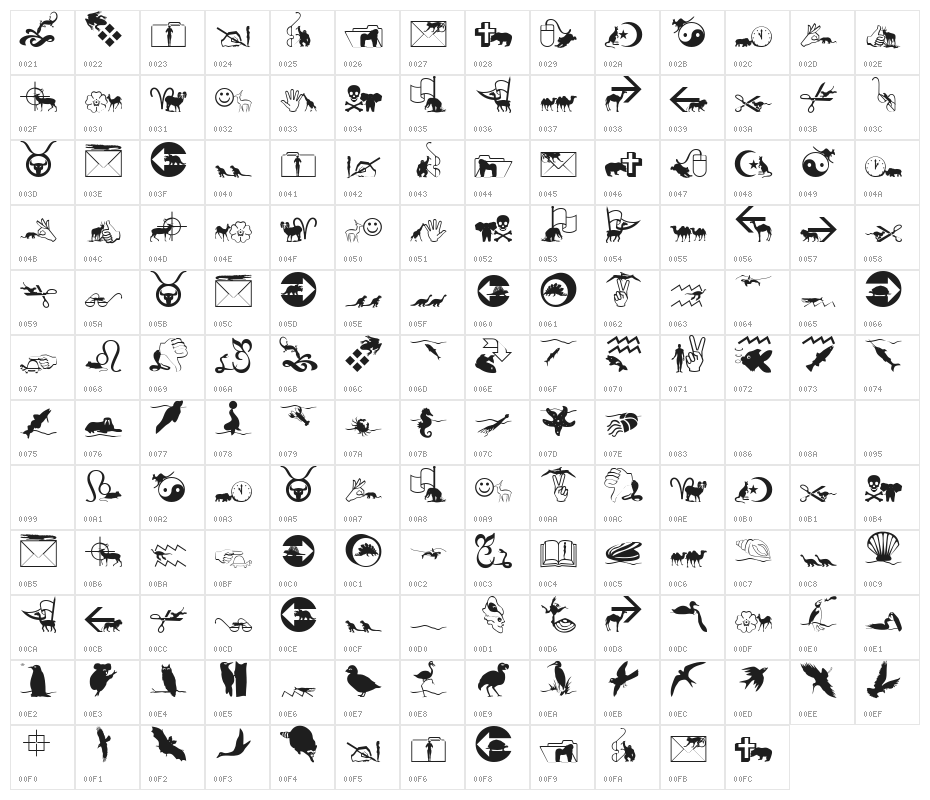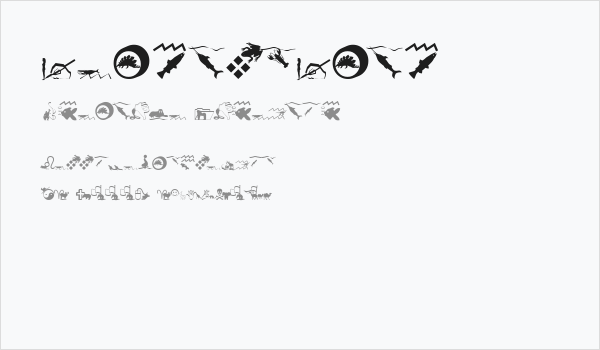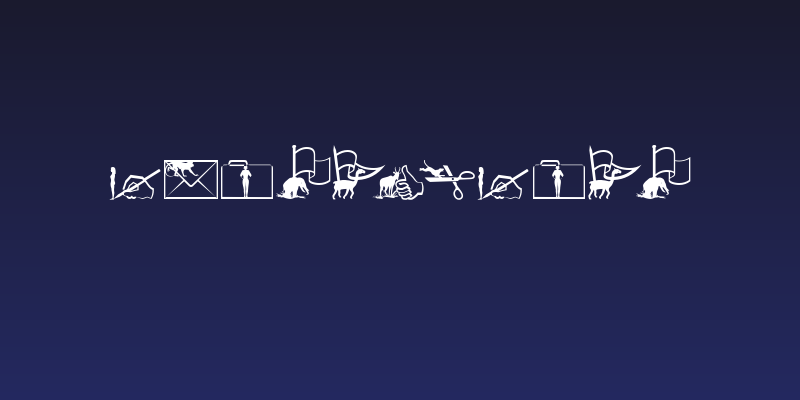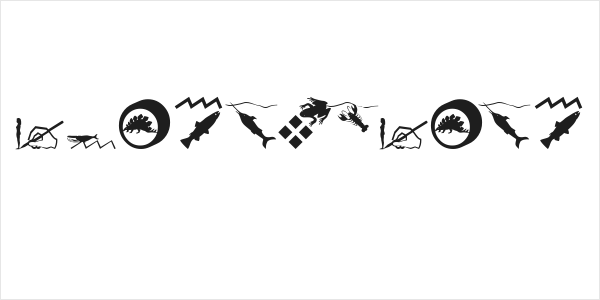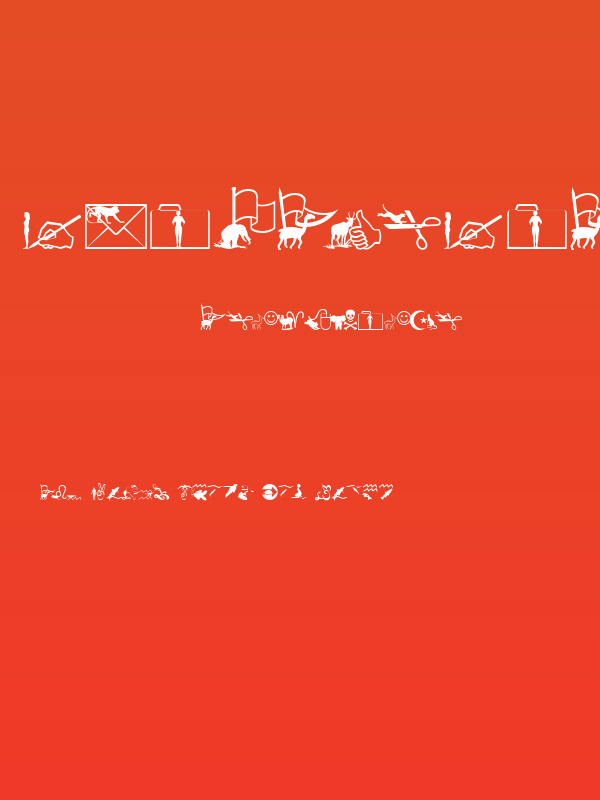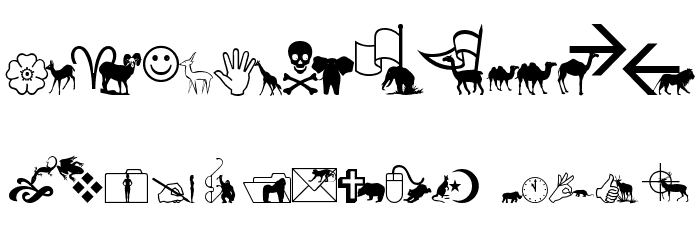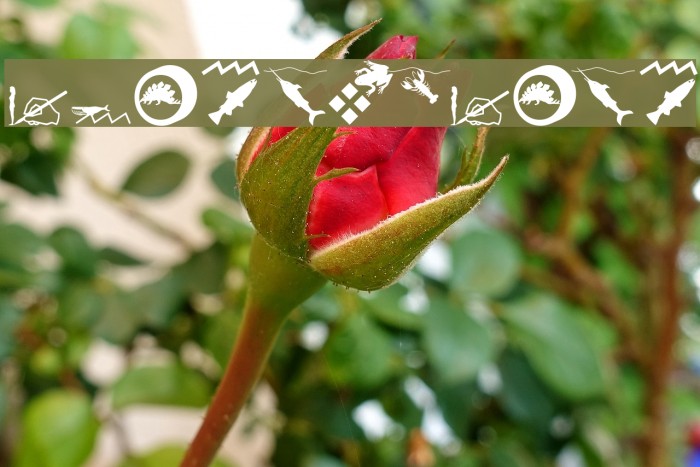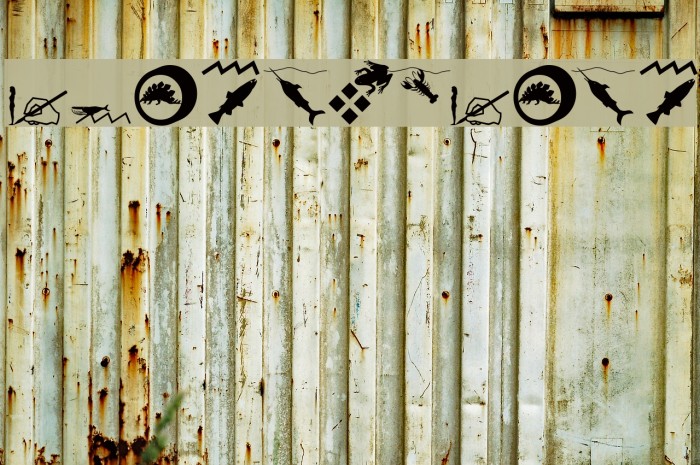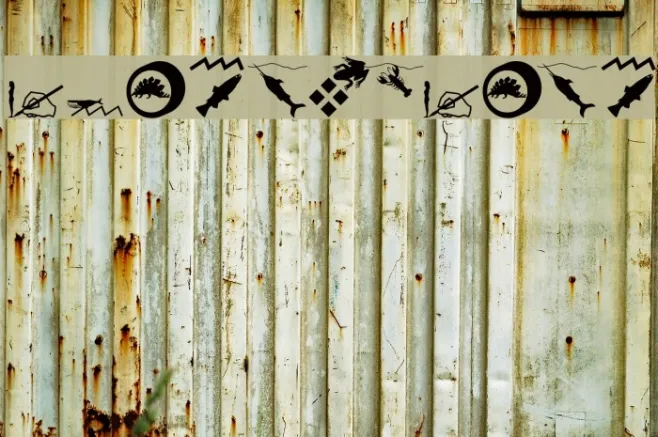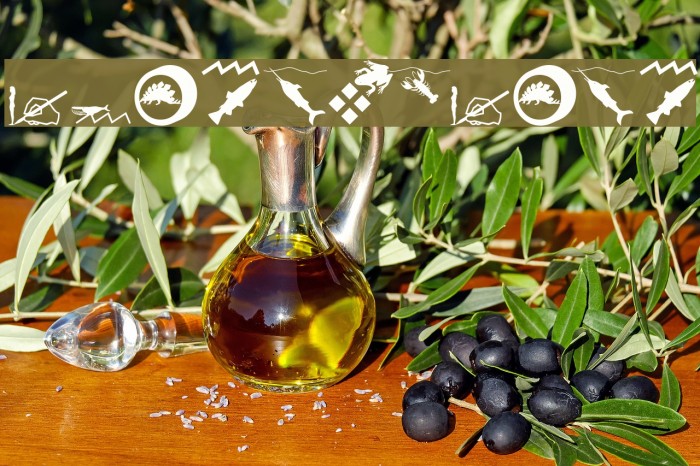
BeastlyBats Font
BeastlyBats Description
This font is a decorative collection of whimsical and playful symbols, featuring a variety of animal silhouettes, human figures, and abstract shapes. Each character is a unique illustration, ranging from insects and mammals to hands and geometric designs. The style is bold and graphic, with a strong emphasis on black and white contrast, making each symbol stand out distinctly. The characters are intricately detailed, offering a sense of movement and life. This font is not designed for traditional text but rather for creative and artistic projects where visual impact is key.
| Overall Style | Whimsical and Playful |
| Use Case | Logos, Illustrations, Creative Projects |
| Proposed Projects | Ideal for creative projects such as children's books, educational materials, or themed event invitations where unique and eye-catching symbols are needed. |